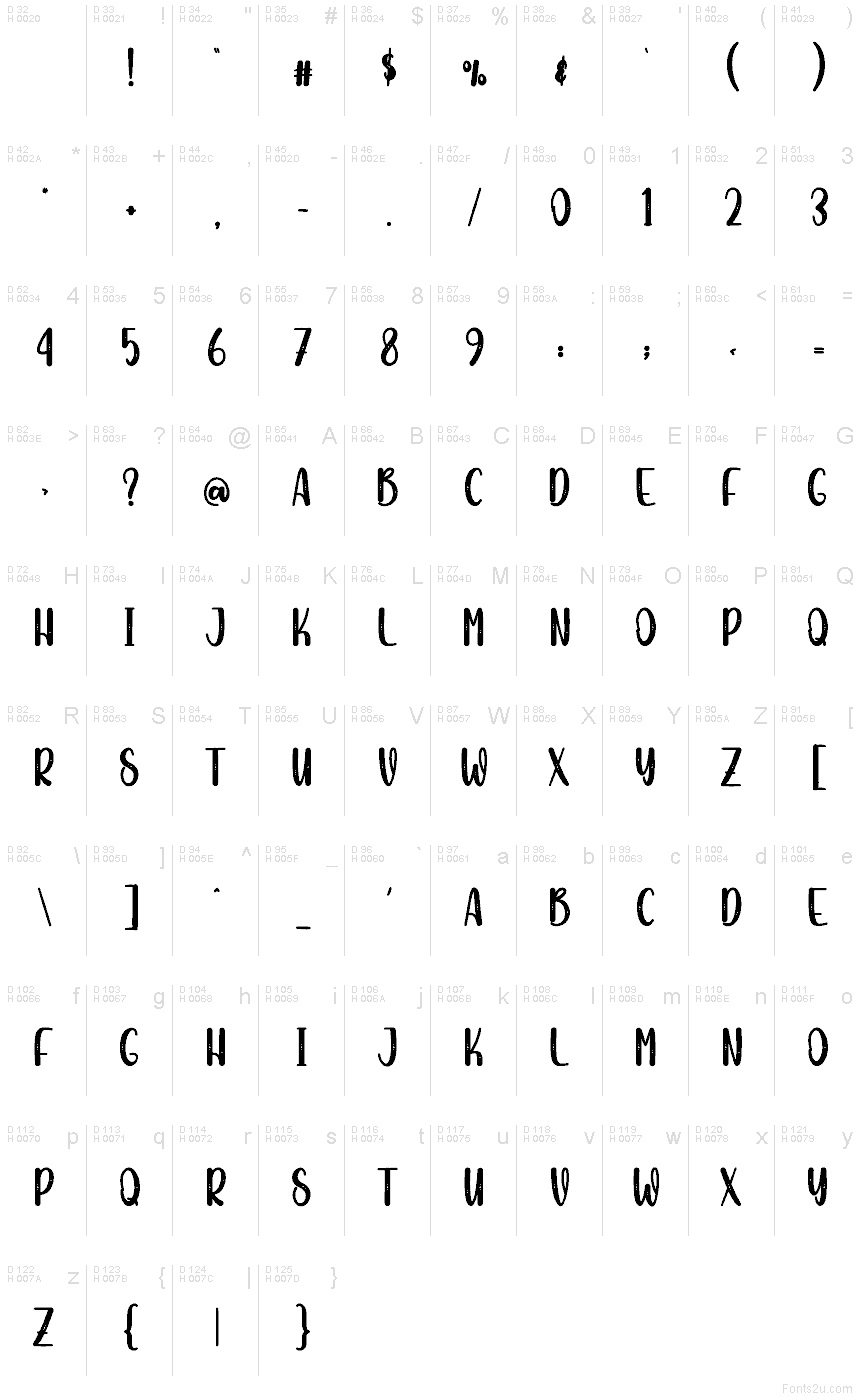
Starlamp
Starlamp font from Scratchones is a condensed decorative display typeface with rounded elements and dots that structure its letters. Giving off a whimsical feel, it has a retro and casual style achieved by unusual glyph shapes, irregular constructions, and different endings.